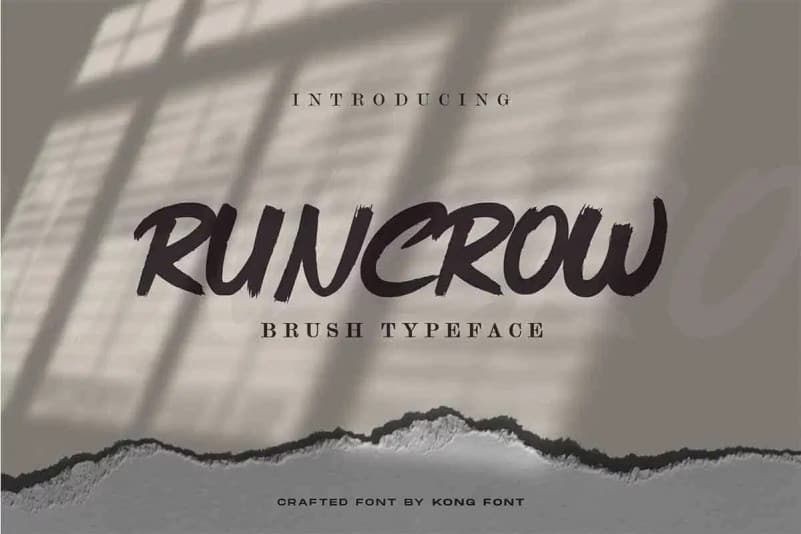
Runcrow Brush Font
Introducing Runcrow Font!!  Runcrow is an all uppercase brush font inspired by sign-painting with a hint of graffiti.
Handwritten font with quick dry strokes and a signature style. perfect for branding projects, home ware designs, product packaging or simply as a stylish text overlay to any background image or posters.